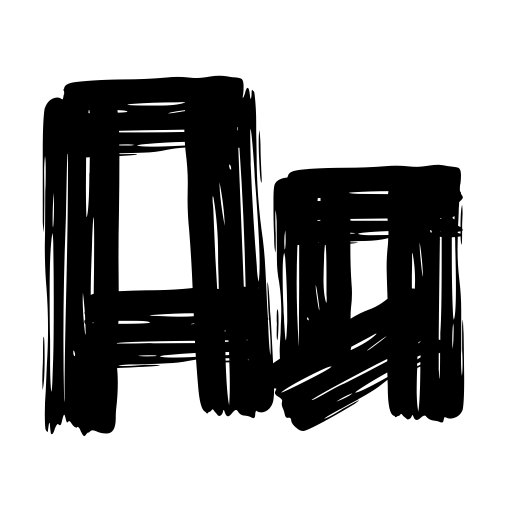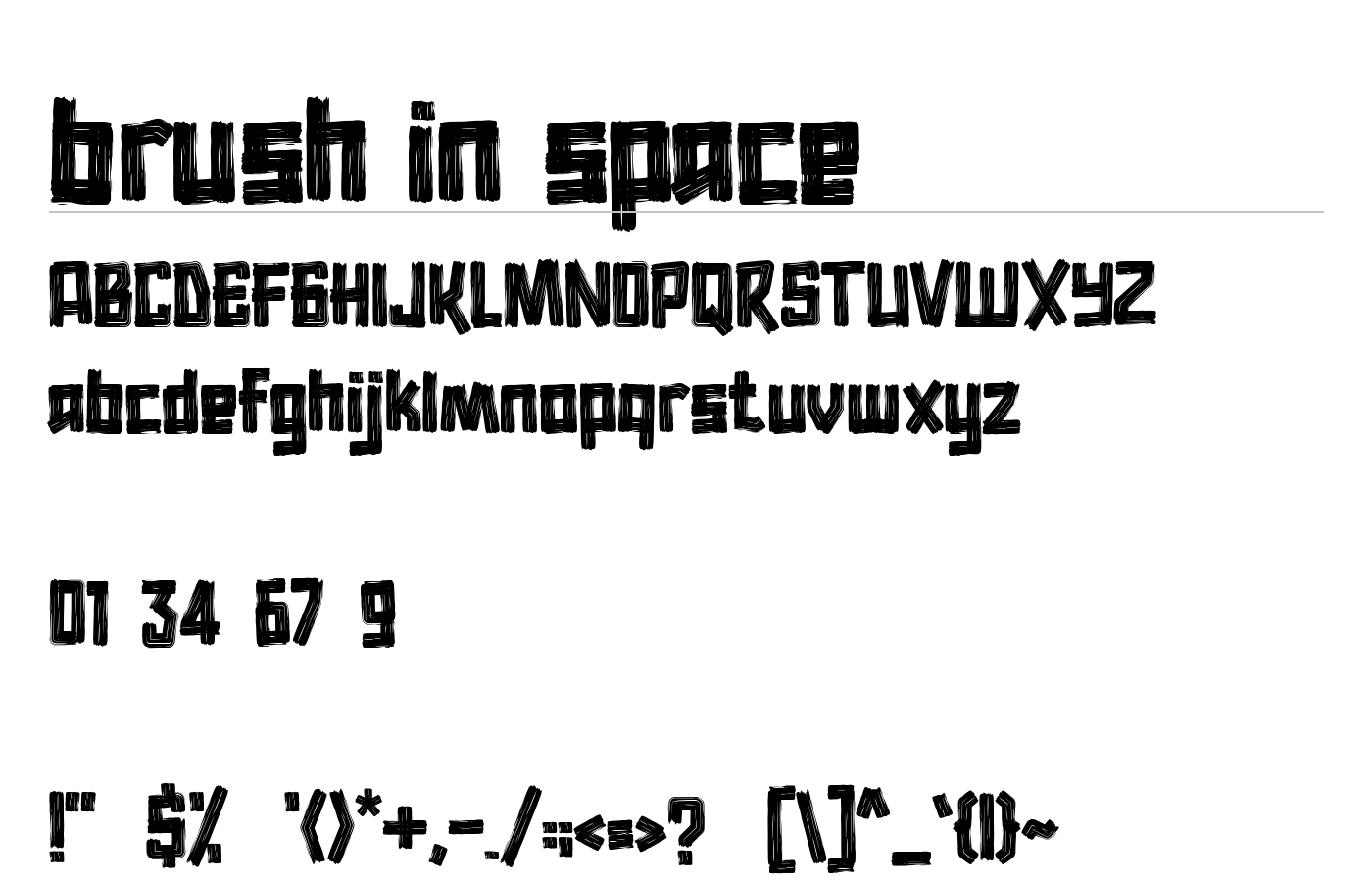
Brush in Space is a bold, condensed sans serif font with a rough, hand-painted texture that gives it an energetic, urban feel. Its tall, blocky letterforms with uneven, brush-stroke edges create a dynamic and informal look, ideal for making a strong visual impact. This font works best in headlines, posters, and creative branding where a raw, artistic vibe is desired.
brush in space Font
About brush in space Font